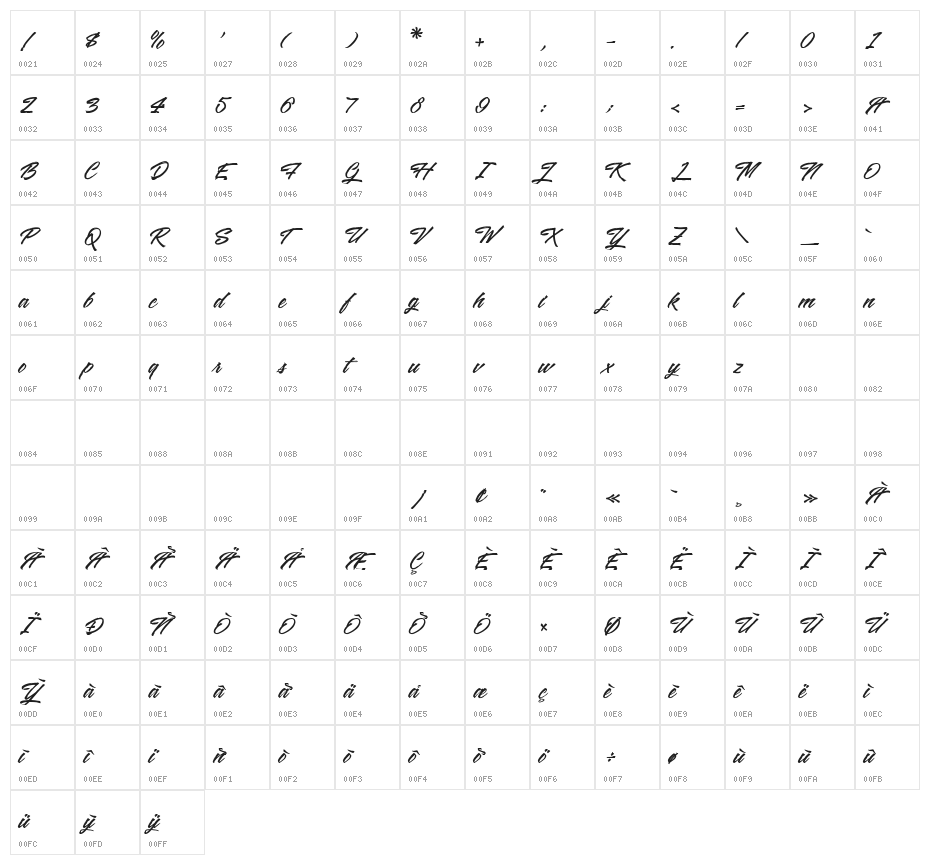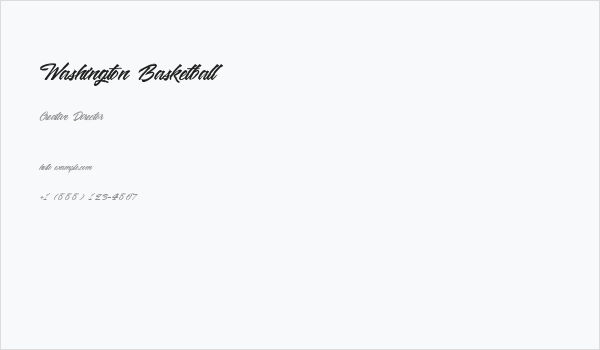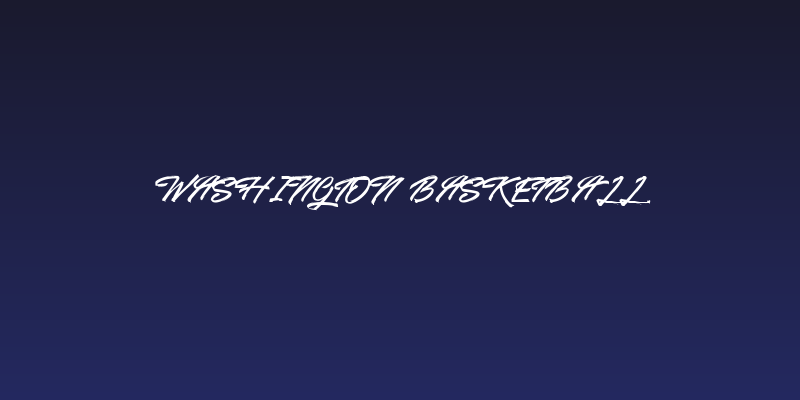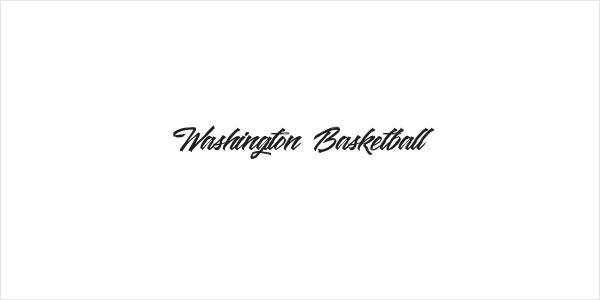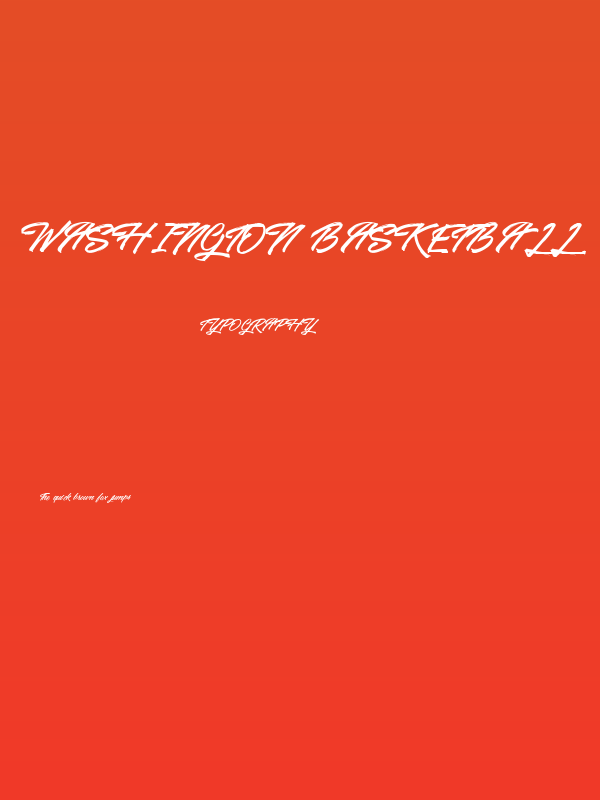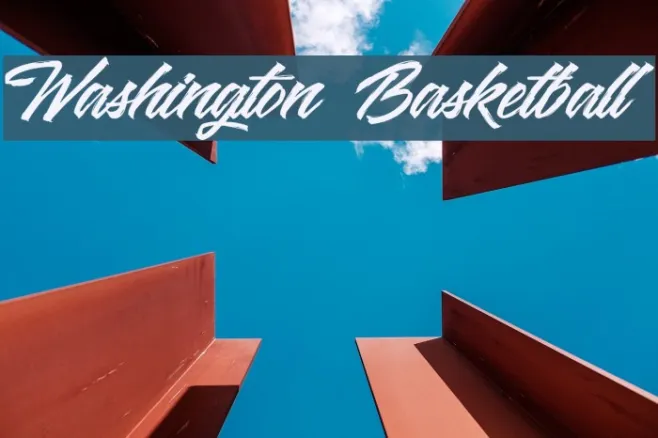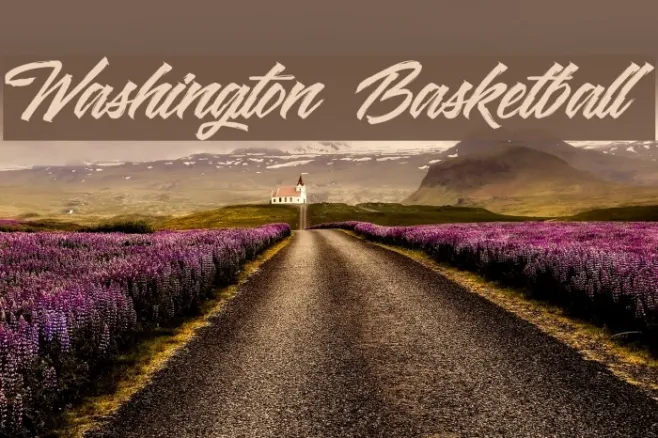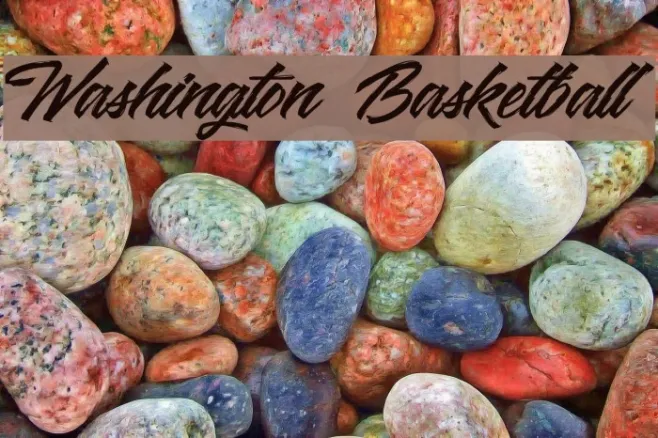
Washington Basketball Font
Washington Basketball Description
This font features a dynamic and energetic script style, characterized by its flowing, cursive letterforms. The strokes are bold and confident, with a slight slant that adds a sense of motion and fluidity. The uppercase letters are particularly striking, with exaggerated loops and swashes that give them a distinctive flair. The lowercase letters maintain a consistent rhythm, making the text easy to read despite its decorative nature. Numbers and special characters are designed to match the overall style, ensuring a cohesive look across all elements.
| Proposed Projects | Ideal for sports branding, event posters, and dynamic logo designs. |